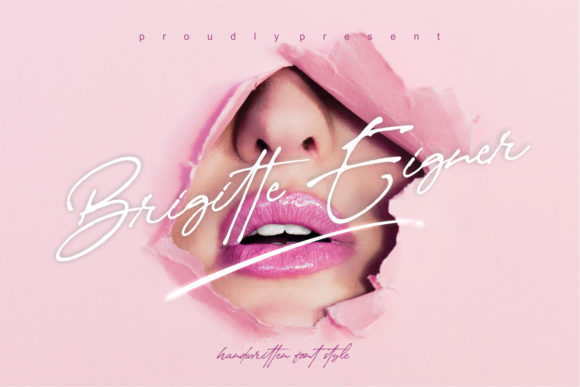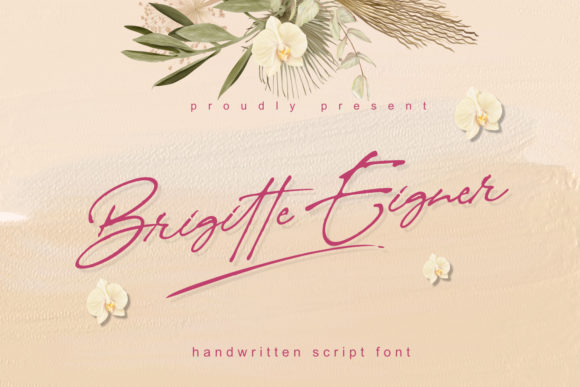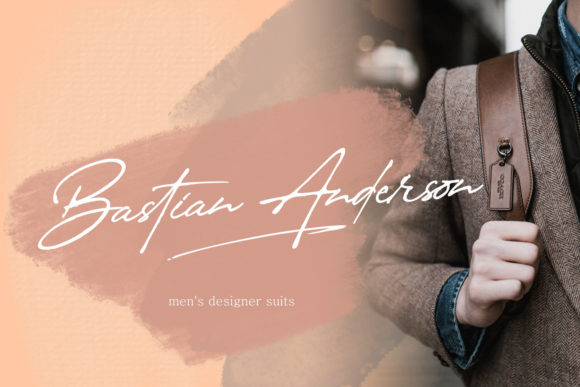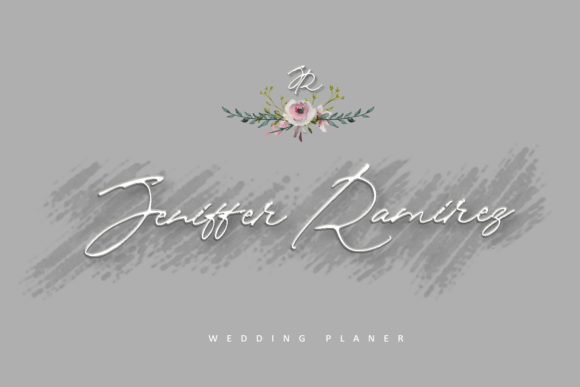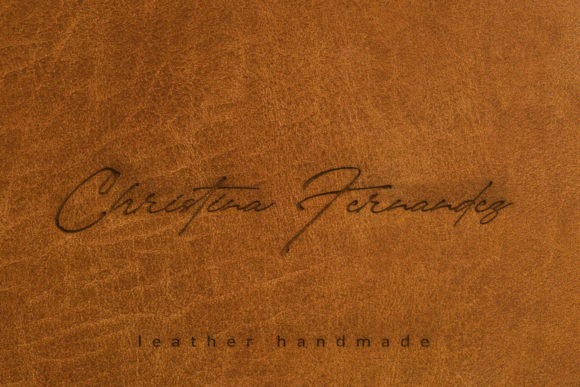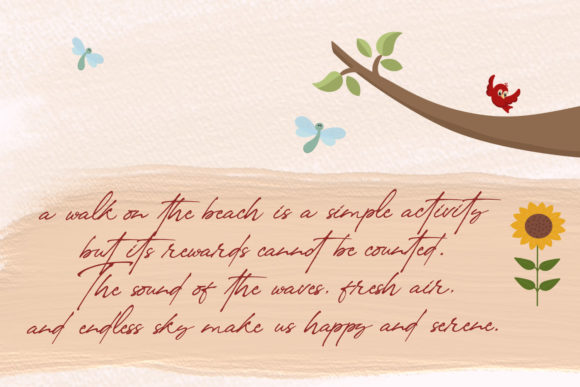
Brigitte Eigner Font
About Brigitte Eigner Font
Brigitte Eigner is a beautiful handwritten font with a natural feel. Fall in love with its authentic feel and use it to create gorgeous wedding invitations, beautiful stationary art, eye-catching social media posts, and cute greeting cards.